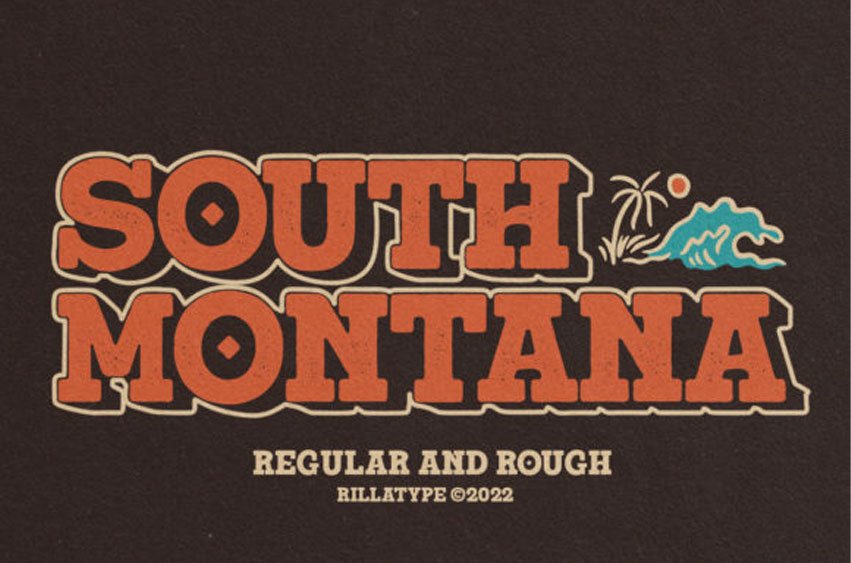
South Montana Font
South Montana Font is a cool, bold and vintage styled slab serif font.
It works incredibly well of branding, posters, labels or designs that could benefit from a retro vibe.